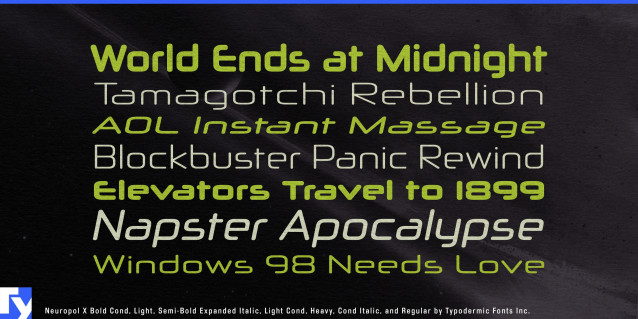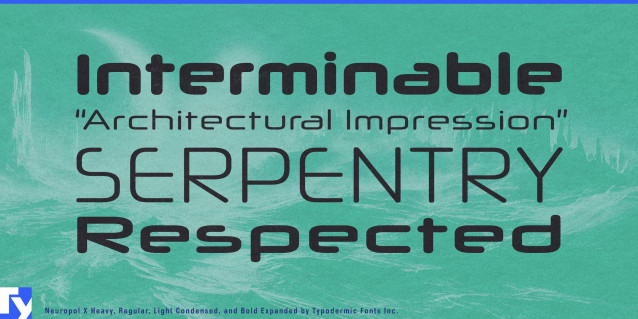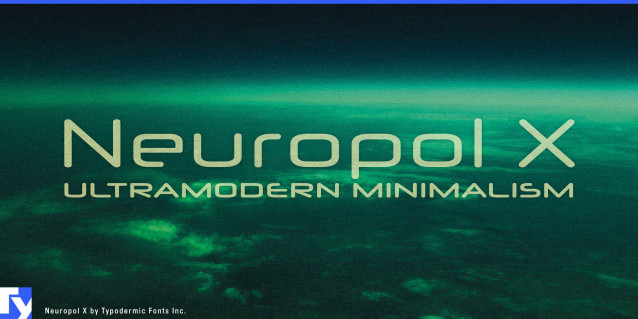
Neuropol X expands rounded segmented geometry across a broad range of widths and weights. It suits consumer electronics, mobility products, robotics, gaming hardware, music technology, vehicle interfaces, product families, exhibition graphics, and futuristic identities that need more hierarchy than a single techno headline.